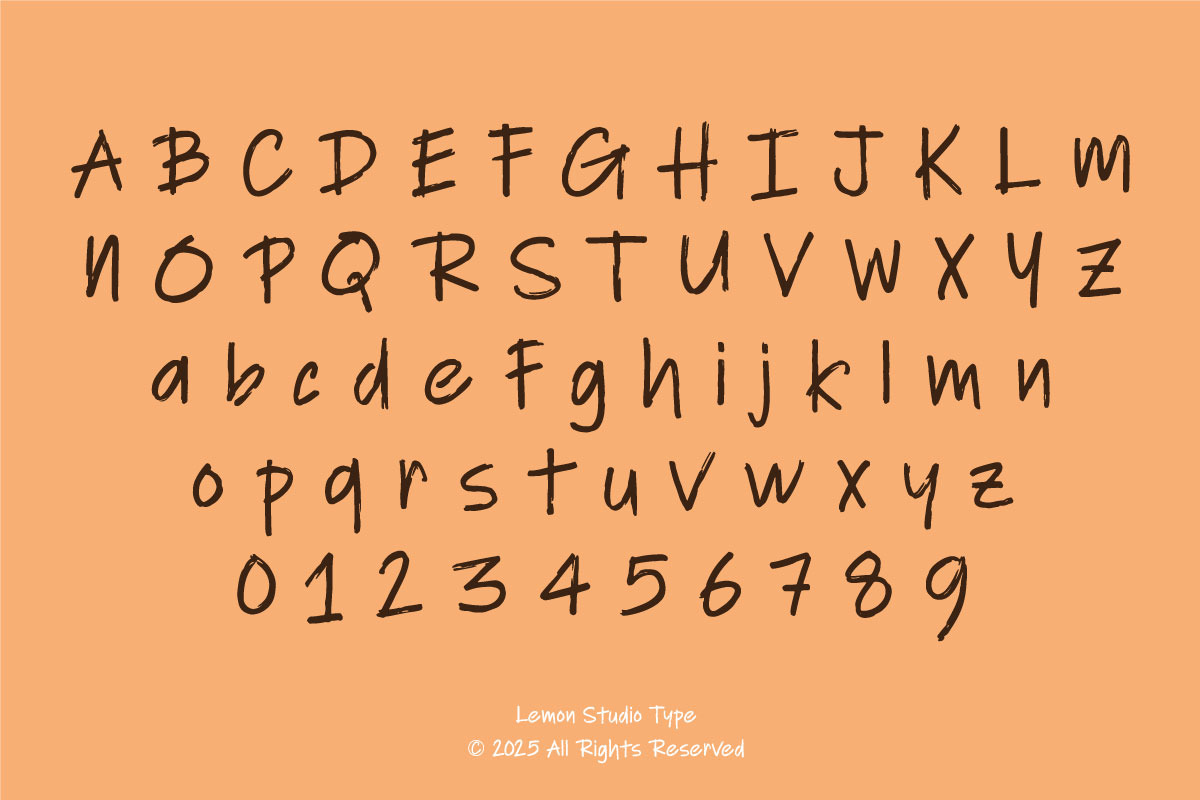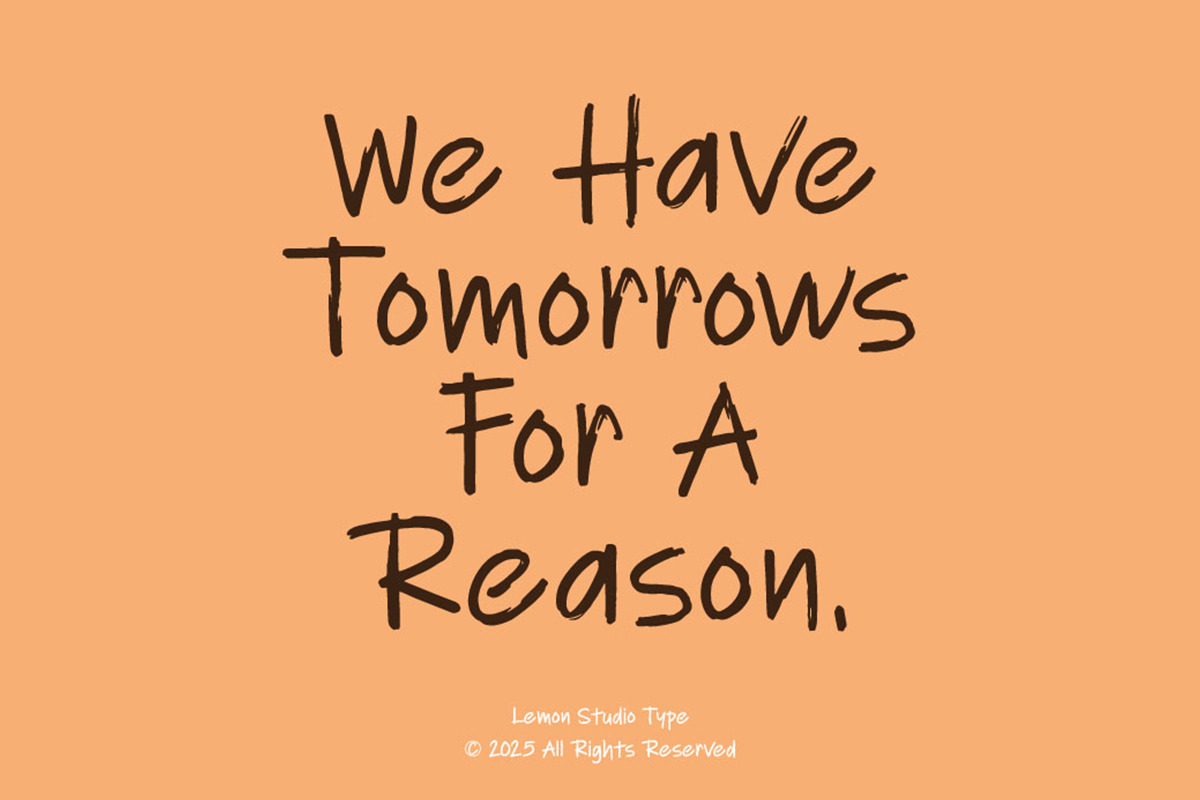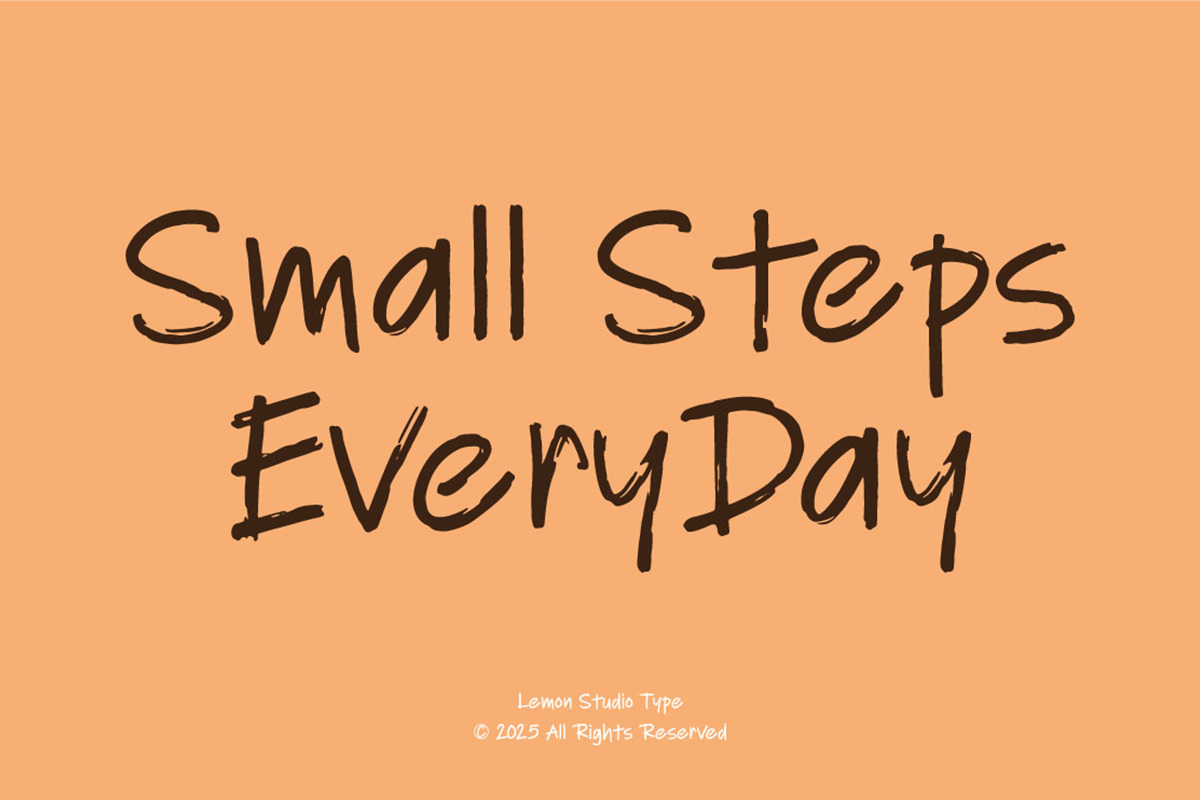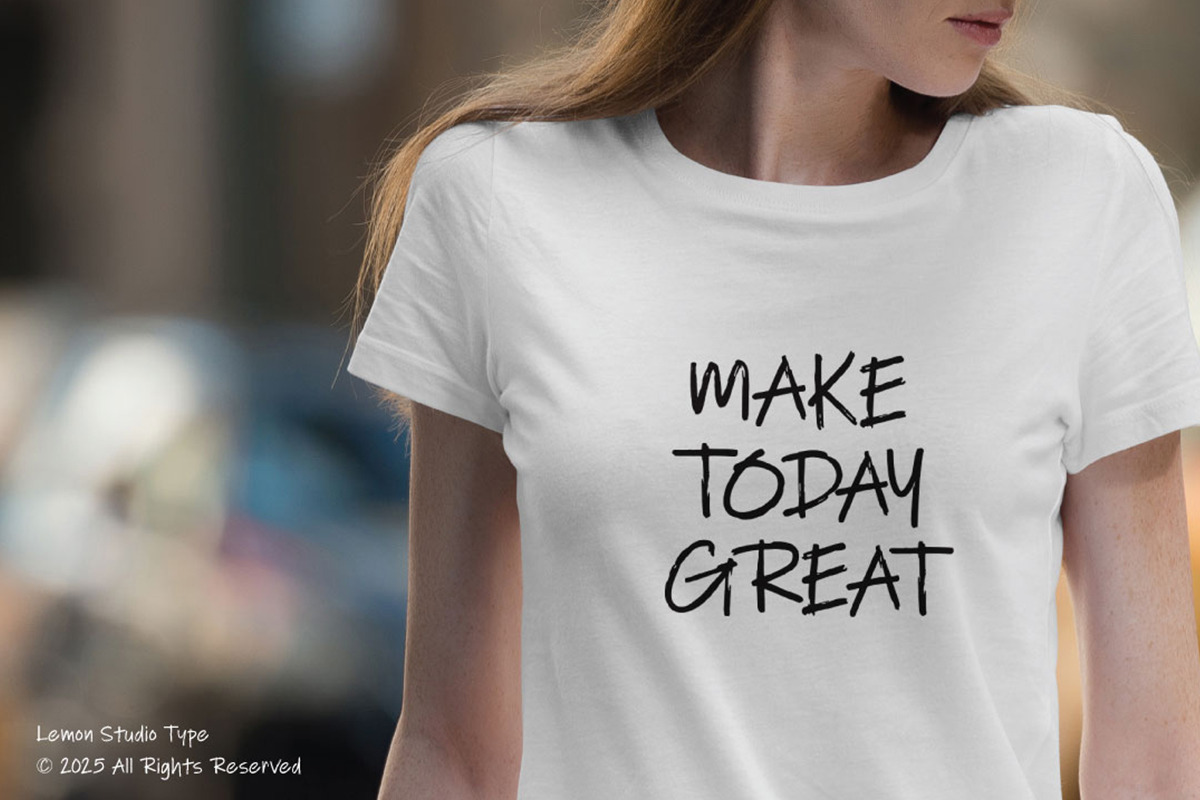
Bitten Cheez
Bitten Cheez is a vibrant handwritten font that infuses energy and character into your designs. With bold strokes and an authentic hand-drawn feel, it embodies spontaneity, making it perfect for projects that seek a memorable, contemporary touch. Each letter flows with casual charm, creating a friendly atmosphere. Ideal for logos, packaging, posters, and social media visuals, this font adds creativity and attitude. Its unique irregular curves and lively rhythm give your text a dynamic quality, making it feel alive and full of personality. Whether for food brands, lifestyle products, or engaging digital content, Bitten Cheez offers a delightful blend of playfulness and style.